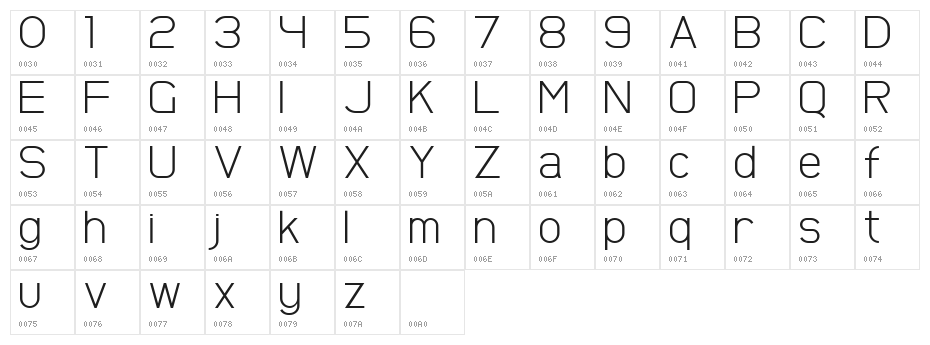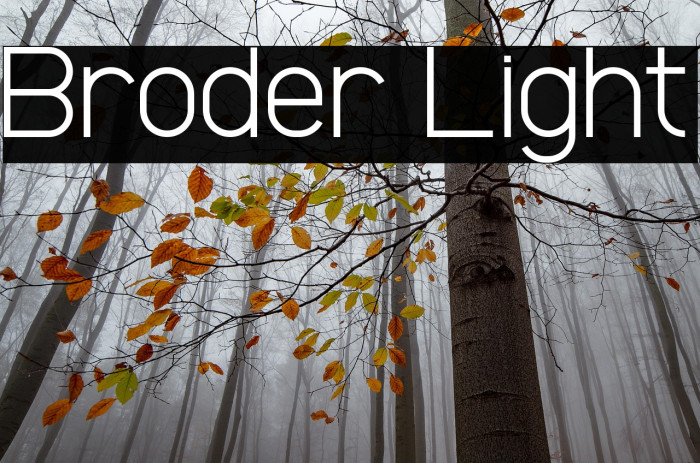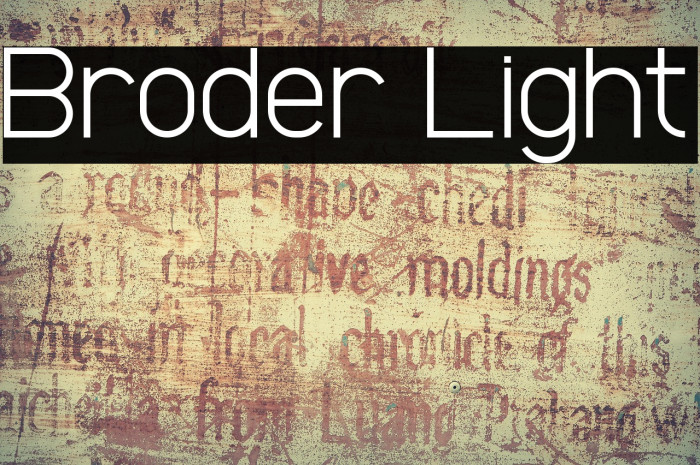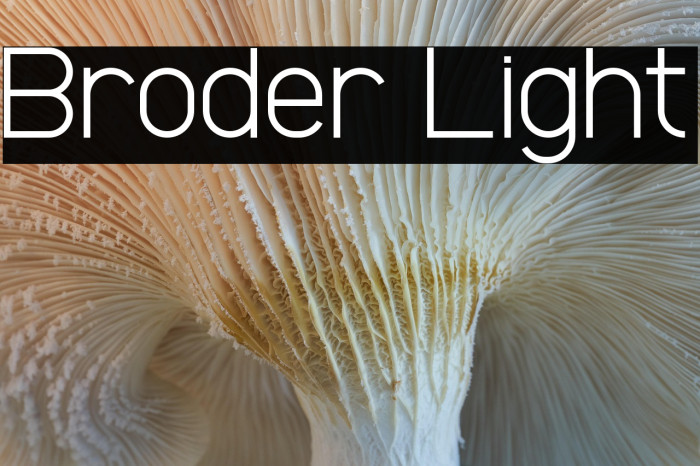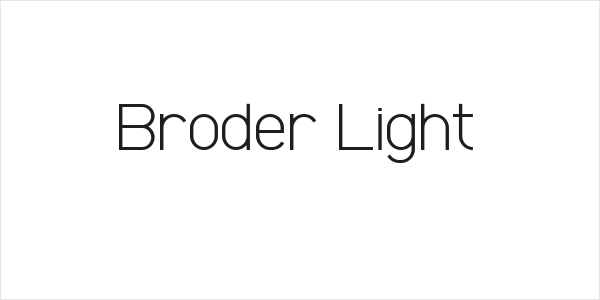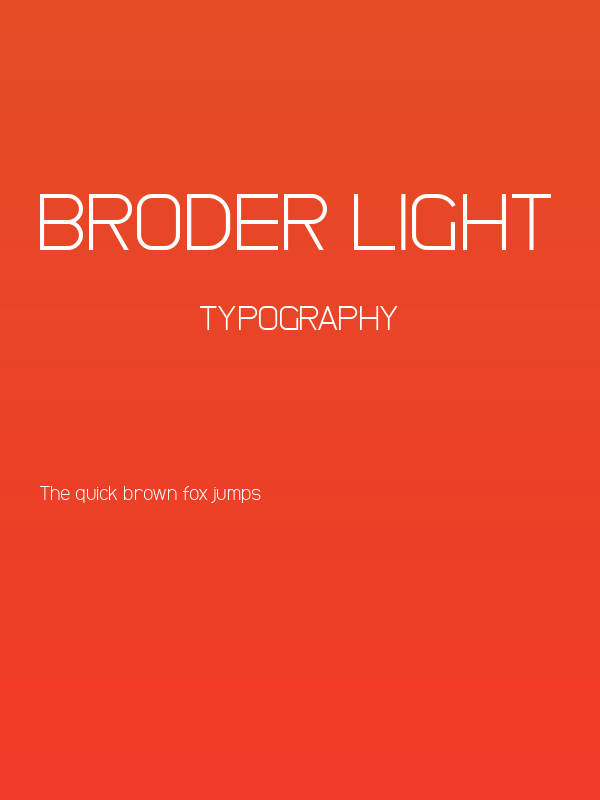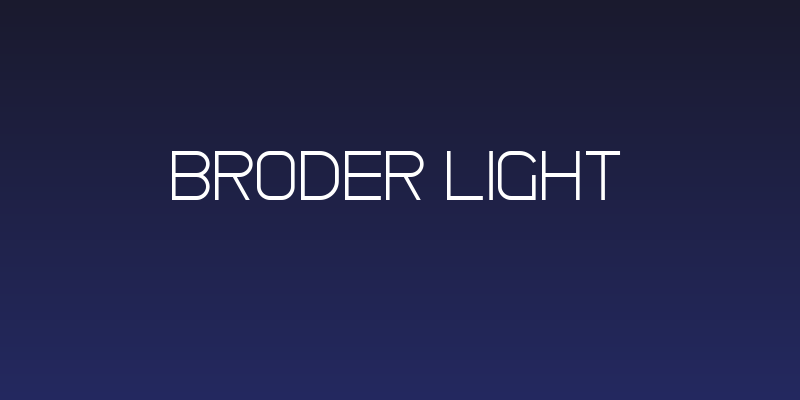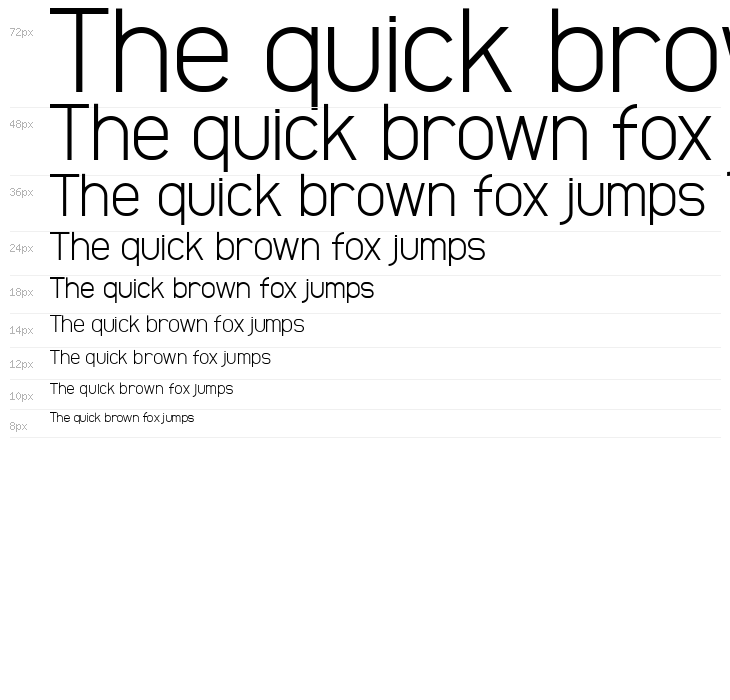
Broder Light Font
Broder Light Description
This font features a sleek and modern design with clean lines and a geometric structure. The characters are uniform in width, giving it a balanced and harmonious appearance. The uppercase and lowercase letters are distinct yet complementary, with a slight curvature that adds a touch of elegance. The numerals are clear and legible, maintaining the font's overall minimalist aesthetic. This font is versatile, suitable for both digital and print media, and can be used effectively in a variety of design contexts.
| Proposed Projects | Ideal for branding, web design, corporate materials, and editorial layouts. |